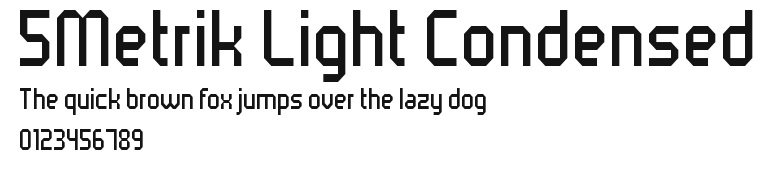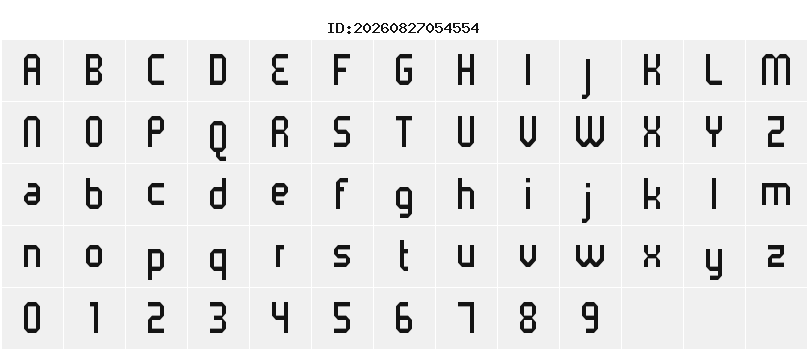
5Metrik Light Condensed Preview
• Font Name: 5Metrik Light Condensed
• Designer: Noah - 11 year old typomaniac
• Description: ‚Äú5Metrik Light Condensed‚Äù was built with FontStruct ‚Äú5Metrik Light Condensed‚Äù is based on ‚Äú5Metrik Light‚Äù by ‚ÄúNoah - 11 year old typomaniac‚Äù (http://fontstruct.com/fontstructors/winty5)
About 5Metrik Light Condensed.ttf
5Metrik Light Condensed.ttf is a modern, elegant sans-serif font designed for ultimate readability and visual harmony. Perfect for branding, headlines, web design, and print materials.